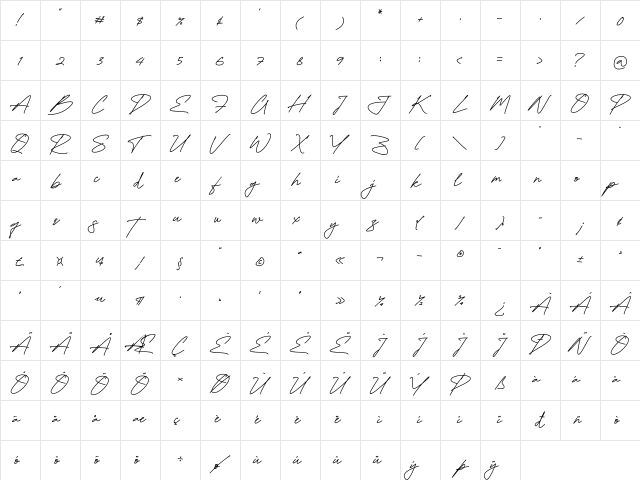
Brittany Signature Demo Regular Free Font
Brittany Signature Demo Regular
Designer: Alfin Nedi
Complete Brittany Signature Demo Regular glyph index. Displaying only characters natively supported by Brittany Signature Demo Regular font.
Design Context for Brittany Signature Demo
Brittany Signature Demo is a composed and adaptable typeface that performs quietly and consistently across a wide range of design contexts.